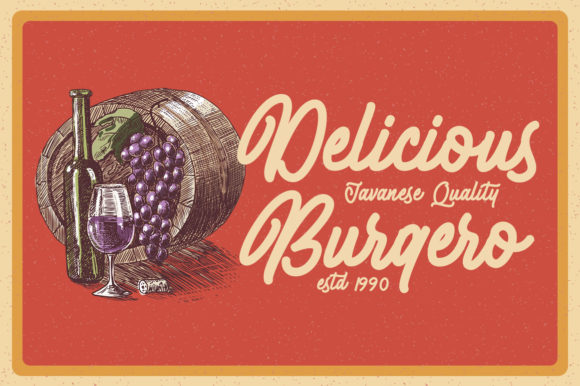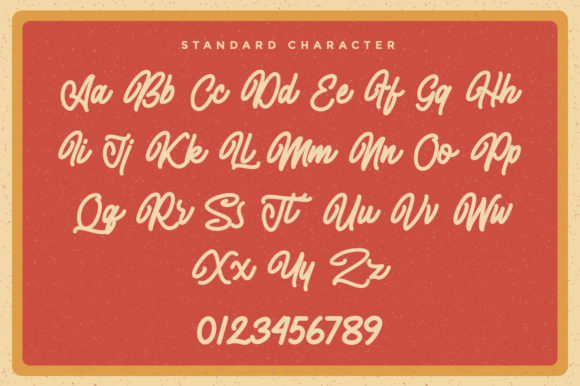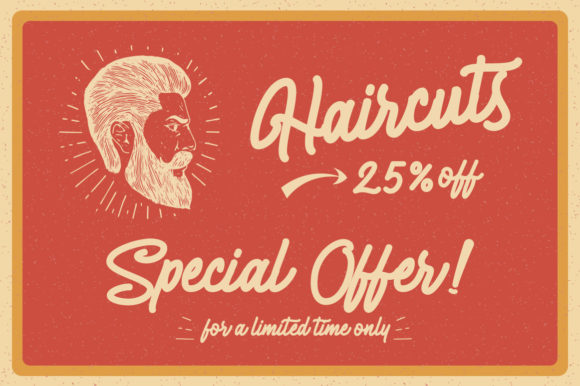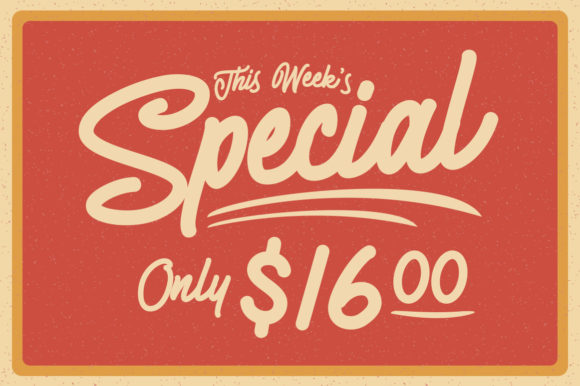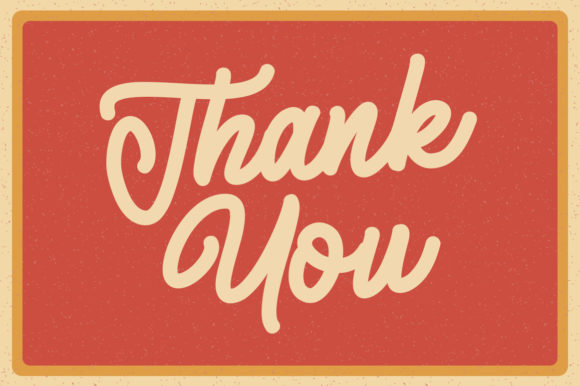
Introducing Almonthy Mirotas: A Timeless Handwritten Font with a Retro Twist
Are you a designer or crafter looking for a unique and stylish font to add a classic touch to your design projects? Look no further than Almonthy Mirotas, a stunning handwritten font with a retro or vintage style that’s sure to captivate your audience. In this article, we’ll dive into the world of Almonthy Mirotas, exploring its features, benefits, and uses, as well as provide tips on how to make the most of this beautiful font.
What is Almonthy Mirotas?
Almonthy Mirotas is a carefully crafted handwritten font that embodies the essence of a bygone era. Its retro or vintage style is reminiscent of classic typography, evoking feelings of nostalgia and sophistication. This font is perfect for designers and crafters who want to add a touch of elegance and refinement to their work.
Key Features of Almonthy Mirotas
- Unique and Handwritten: Almonthy Mirotas is a one-of-a-kind, handwritten font that adds a personal touch to any design project.
- Retro or Vintage Style: The font’s classic style is perfect for creating designs that evoke a sense of nostalgia and timelessness.
- Highly Versatile: Almonthy Mirotas can be used for a wide range of design projects, from branding and advertising to packaging and digital media.
- Easily Readable: The font’s clear and legible design ensures that your message is conveyed with clarity and precision.
Benefits of Using Almonthy Mirotas
So, why choose Almonthy Mirotas for your design projects? Here are just a few benefits of using this stunning font:
- Adds a Classic Touch: Almonthy Mirotas brings a touch of sophistication and elegance to any design project, making it perfect for brands that want to convey a sense of tradition and heritage.
- Stand Out from the Crowd: With its unique and handwritten design, Almonthy Mirotas helps you differentiate your brand and create a lasting impression on your audience.
- Perfect for Branding and Advertising: The font’s retro or vintage style makes it ideal for use in branding, advertising, and marketing materials, such as logos, posters, and flyers.
Tips for Using Almonthy Mirotas
To get the most out of Almonthy Mirotas, here are a few tips to keep in mind:
- Pair with Modern Fonts: Combine Almonthy Mirotas with modern fonts to create a striking contrast that adds visual interest to your design.
- Use for Headings and Titles: The font’s bold and expressive design makes it perfect for use in headings and titles, where you want to grab the reader’s attention.
- Experiment with Colors: Try pairing Almonthy Mirotas with different colors to create a unique and eye-catching design that reflects your brand’s personality.